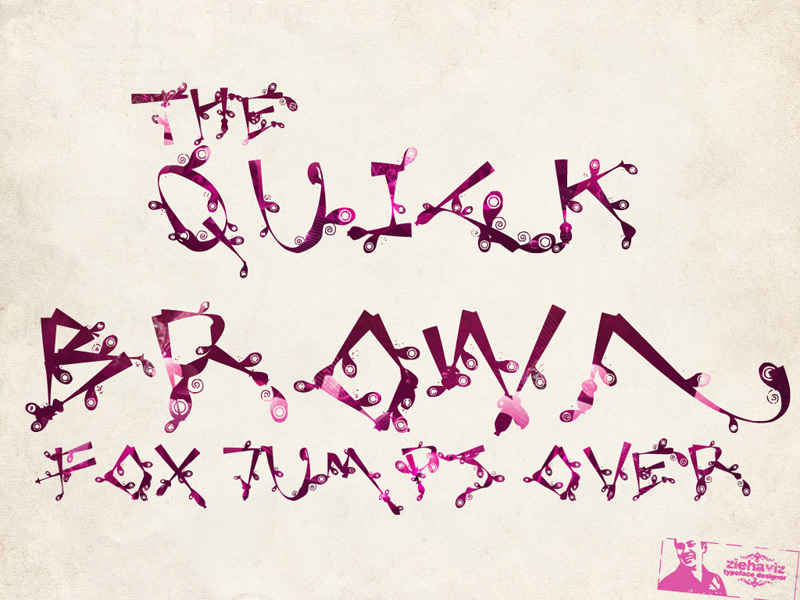
Lost Popnicasiana by Abdul Hafiz Hilman, also known as Ziehaviz of Fizzetica DepokAsiana Type Foundry, is a free decorative display font with jagged, cut-paper letterforms. Spirals and bead-like drops gather around the strokes. The uneven silhouettes feel deliberately unruly.
Music posters and festival merchandise suit its theatrical ornament, and the strange plant-like curls also fit fantasy game graphics and children's publishing. Across those settings, the lettering can become part of a surreal illustrated world.